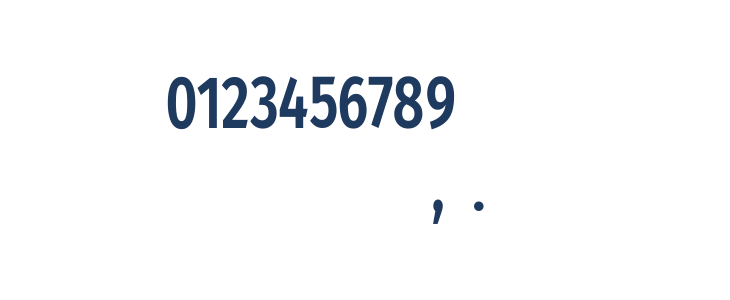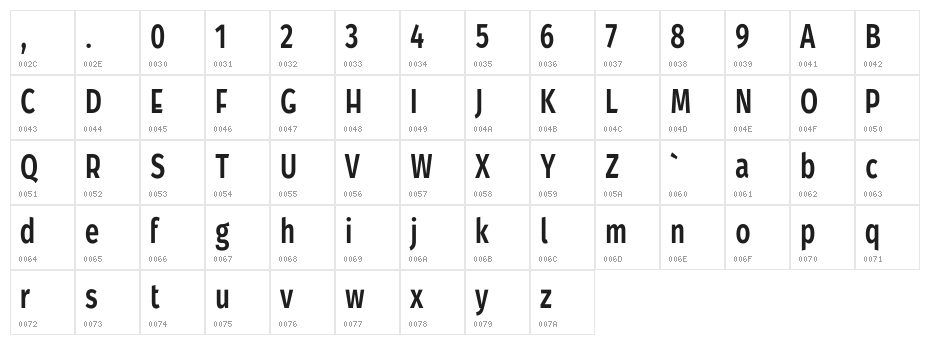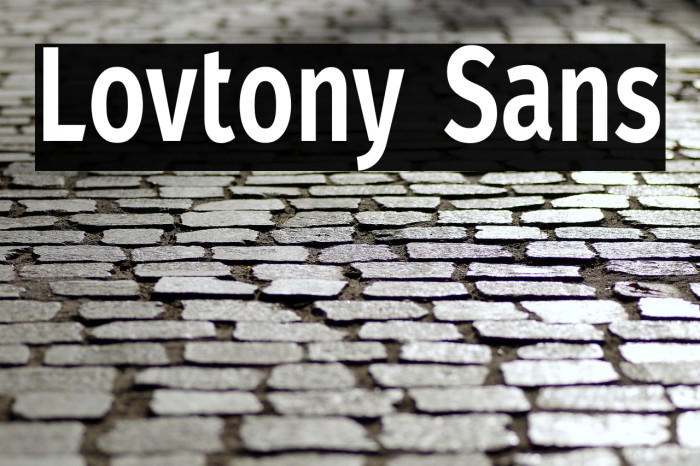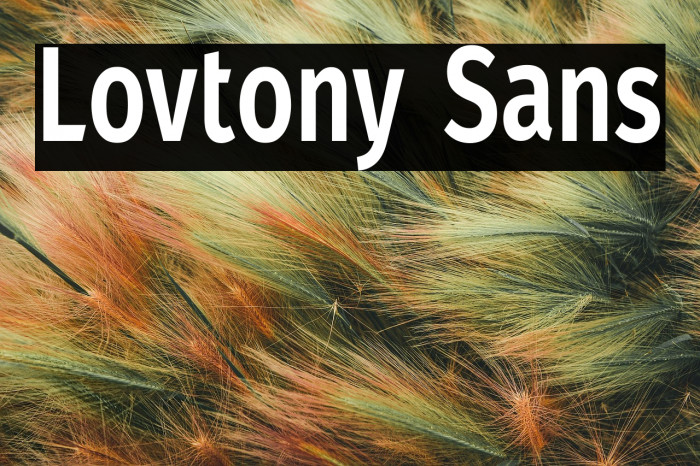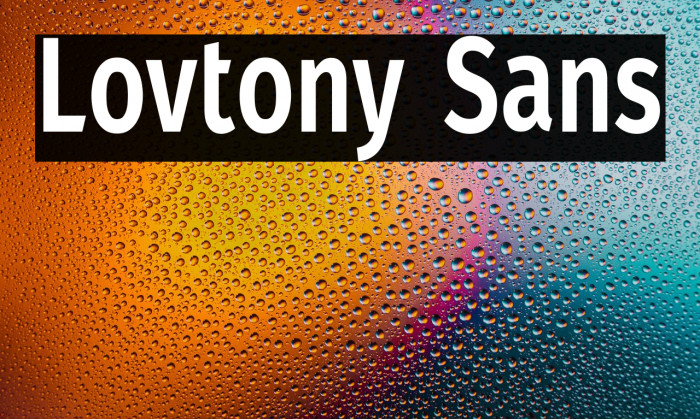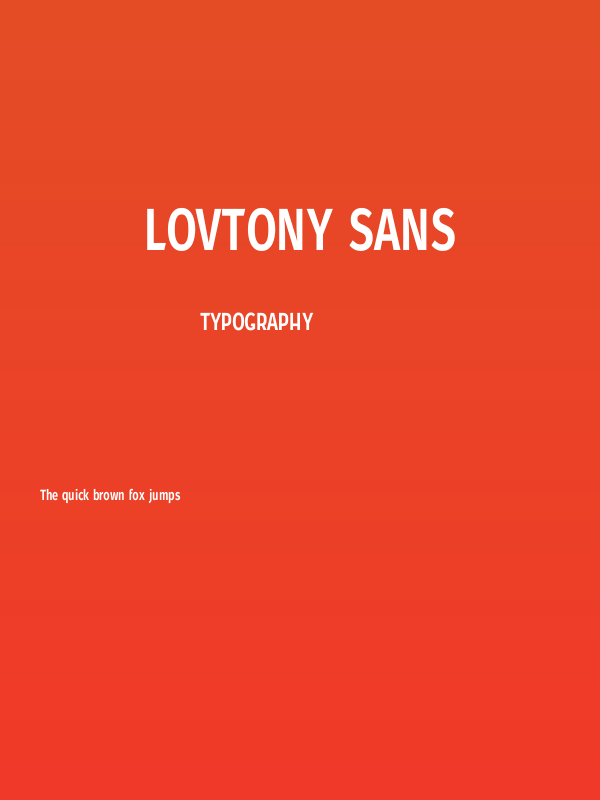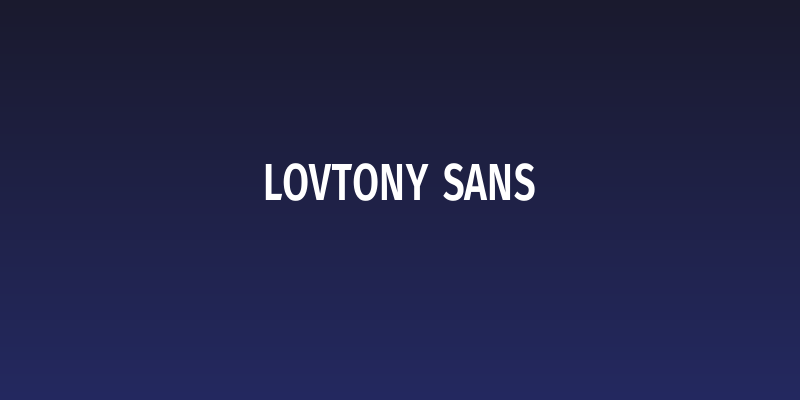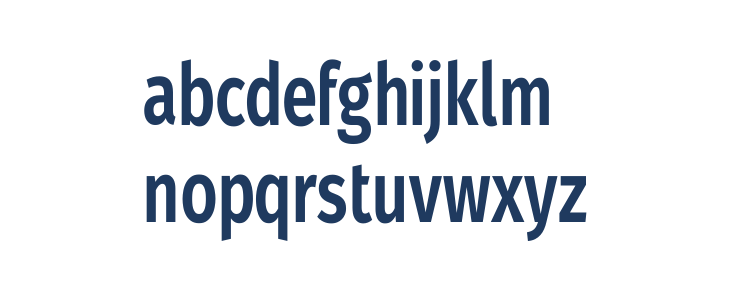
This font features a clean and modern sans-serif design, characterized by its bold and uniform stroke width. The uppercase letters are tall and commanding, while the lowercase letters maintain a consistent height, providing a harmonious balance. The numerals are clear and easily distinguishable, making them suitable for various applications. The font's overall appearance is sleek and professional, with a slight geometric influence that adds to its contemporary feel. The spacing between characters is normal, ensuring readability and versatility across different mediums.
| Use Case | Headlines, Logos, Web design |
| Proposed Projects | Ideal for branding, advertising, web design, and editorial projects where a modern and clean look is desired. |